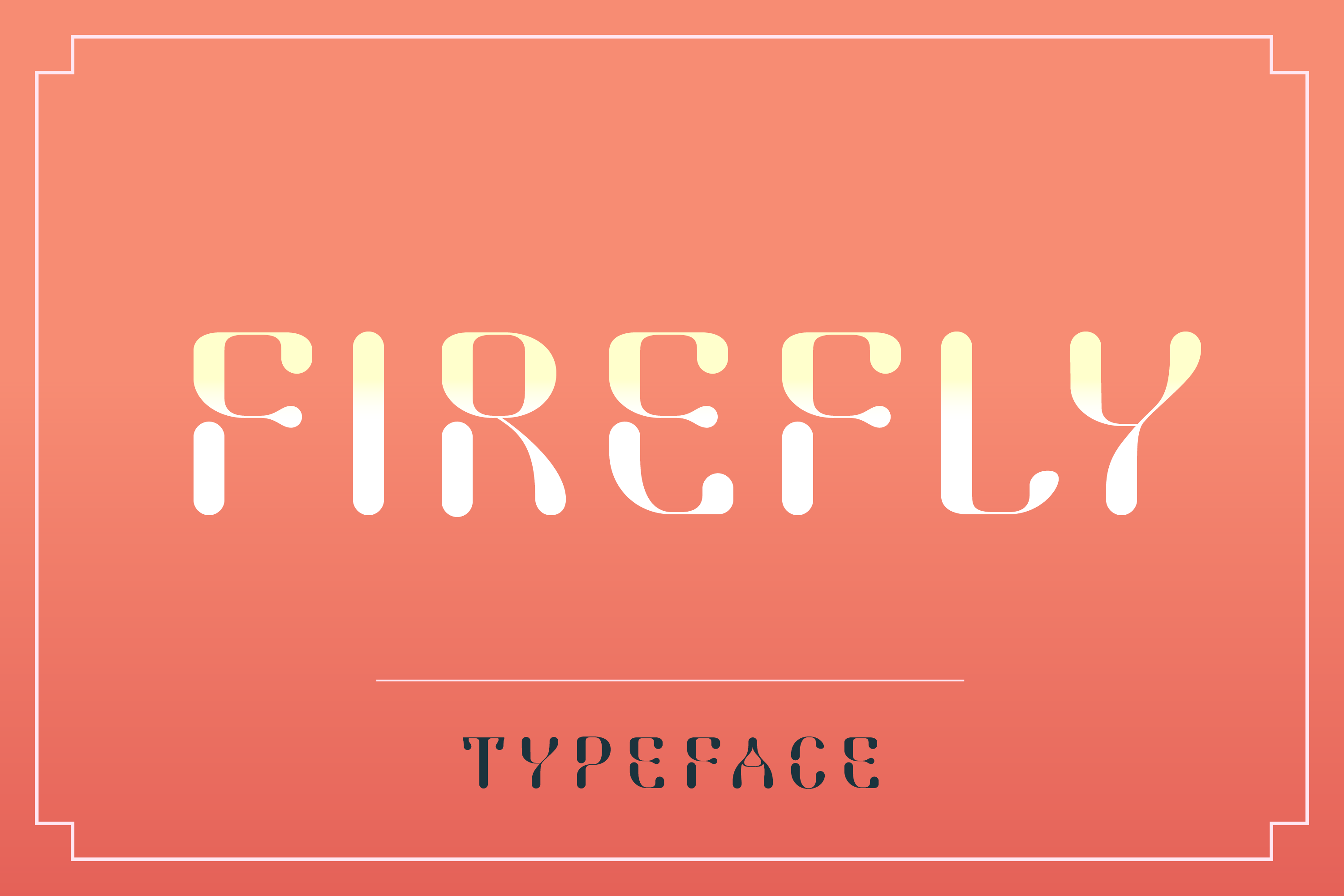
Firefly Elegant Display Font
SB Firefly is an elegant display font with an organic, liquid style.
Alternative glyphs for I, P, Q and T.
This typeface exhibits a distinctive Art Nouveau-inspired aesthetic with retro-psychedelic undertones. The letterforms are characterized by dramatic stroke contrast, where thick stems transition into delicate, curved terminals.